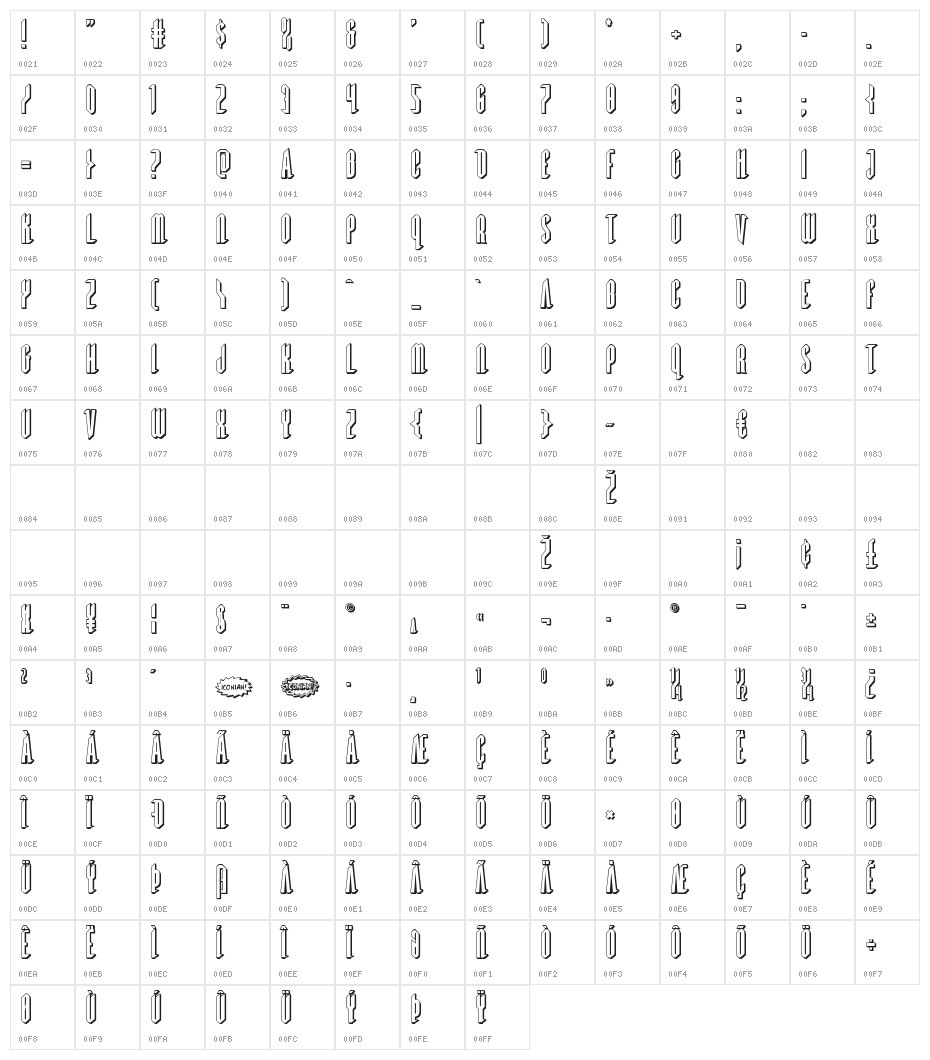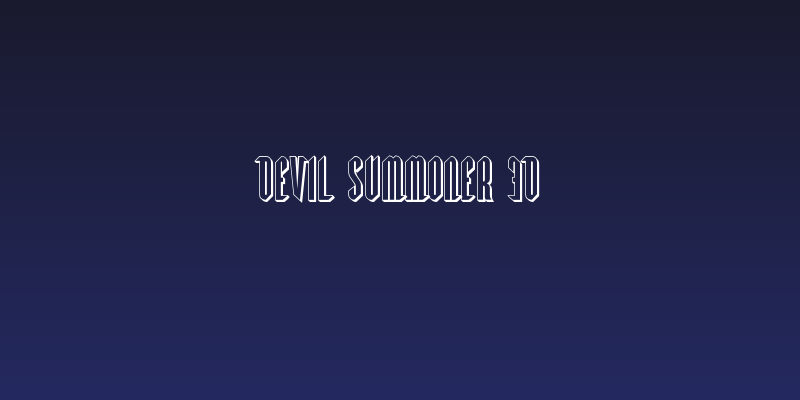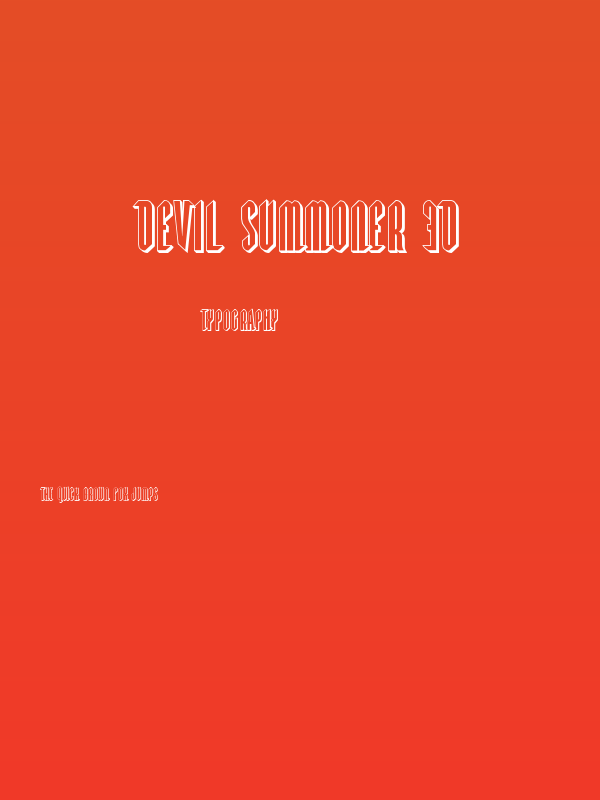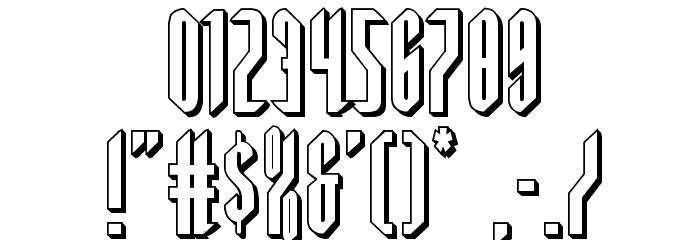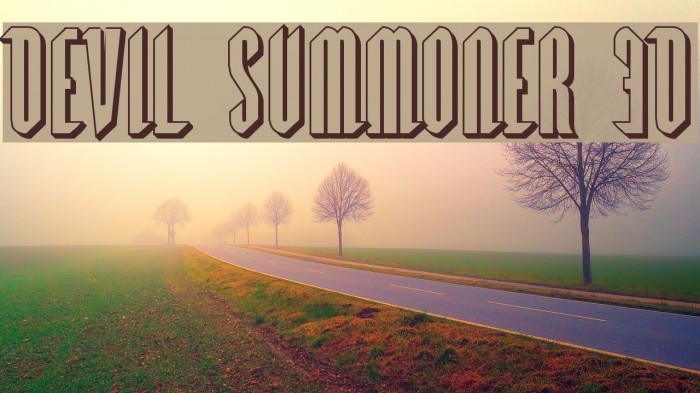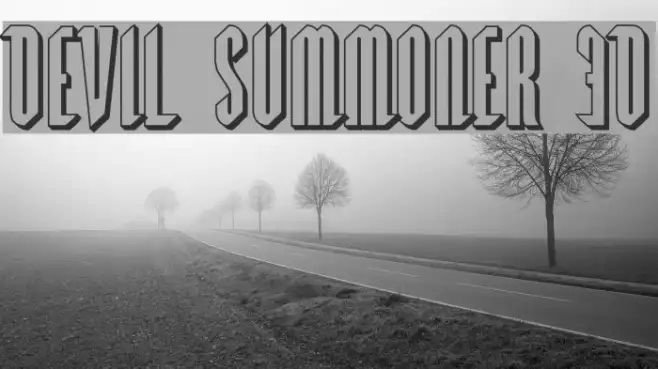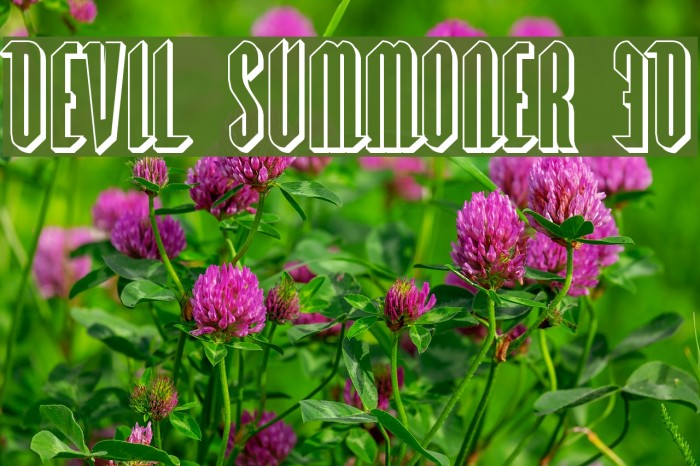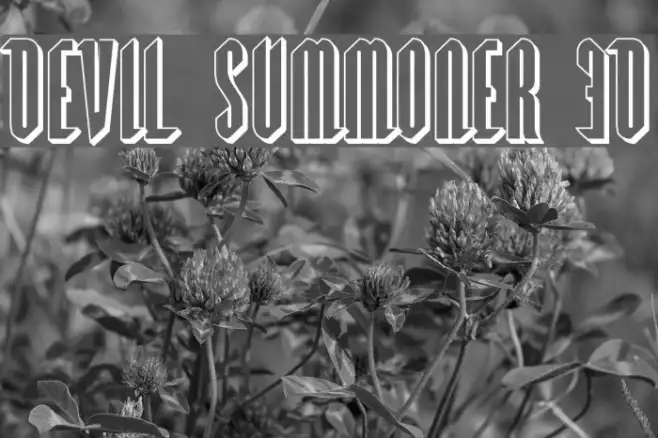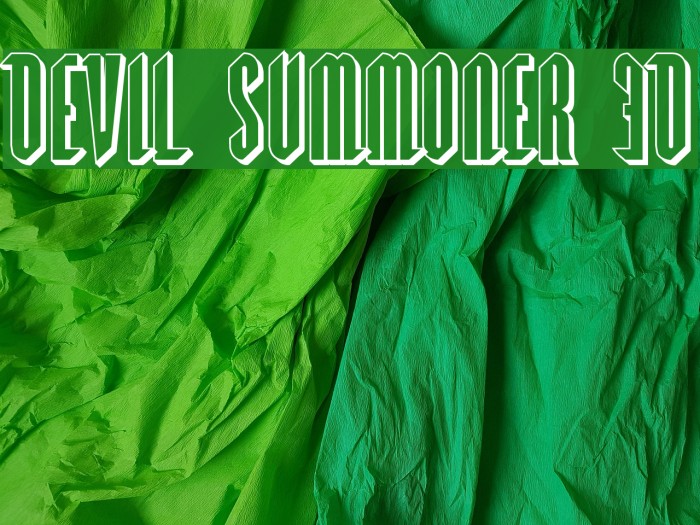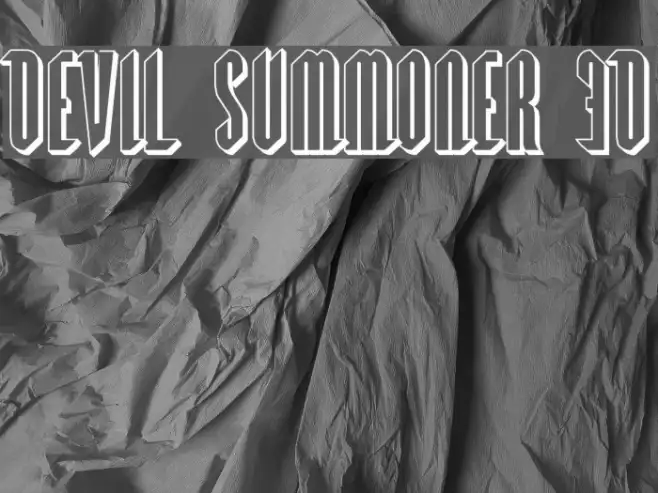
Devil Summoner 3D Font
Devil Summoner 3D Description
This font features a bold and striking 3D effect, with each character outlined to create a shadow-like appearance. The letters are uppercase and have a geometric, angular design that gives them a modern and edgy look. The numbers and special characters follow the same style, ensuring consistency across all elements. The font's unique three-dimensional aspect makes it stand out, providing depth and a sense of movement. Its boldness and distinct style make it suitable for attention-grabbing designs.
| Proposed Projects | Ideal for video game titles, posters, logos, and any project requiring a dynamic and impactful visual presence. |